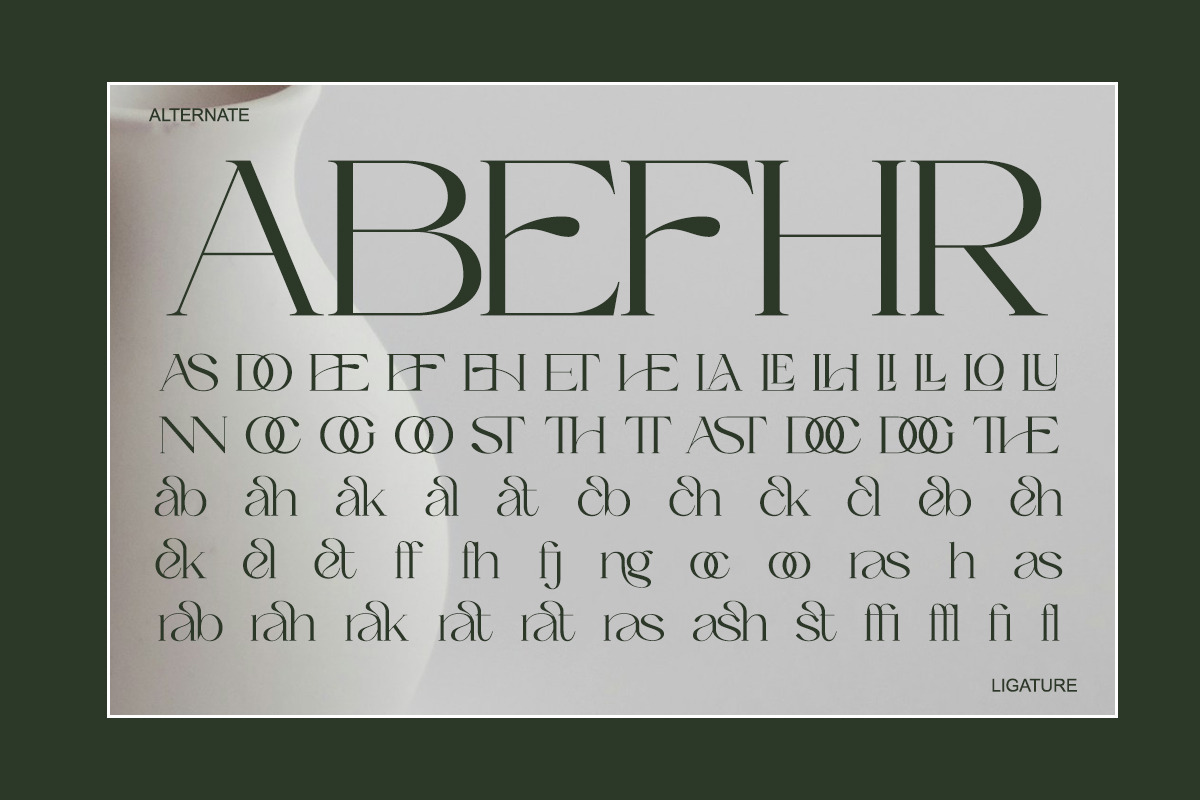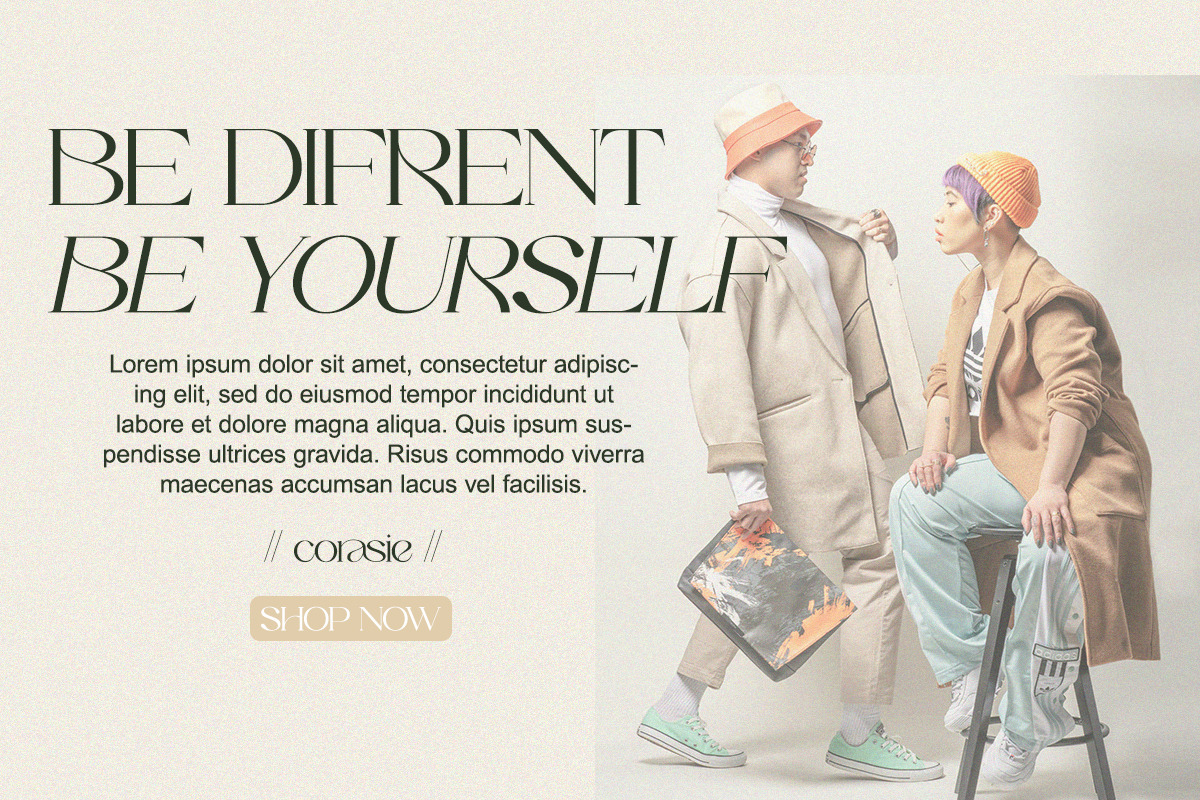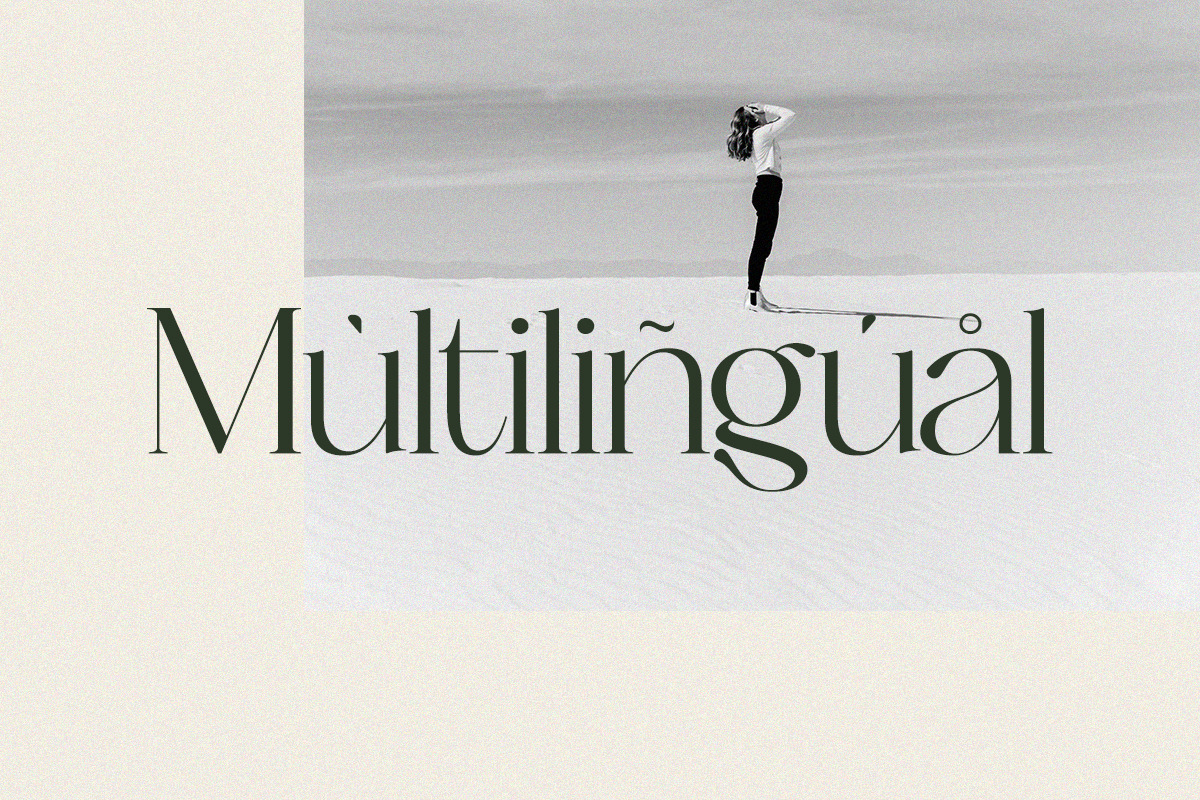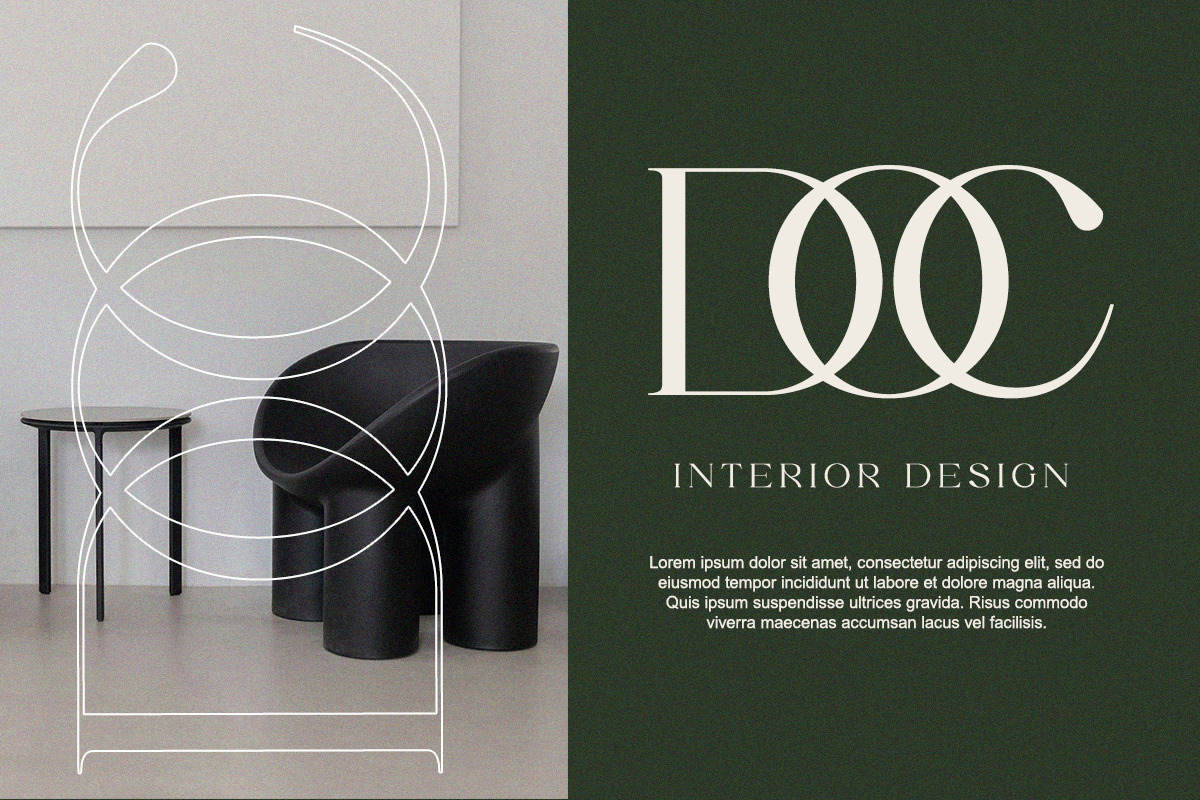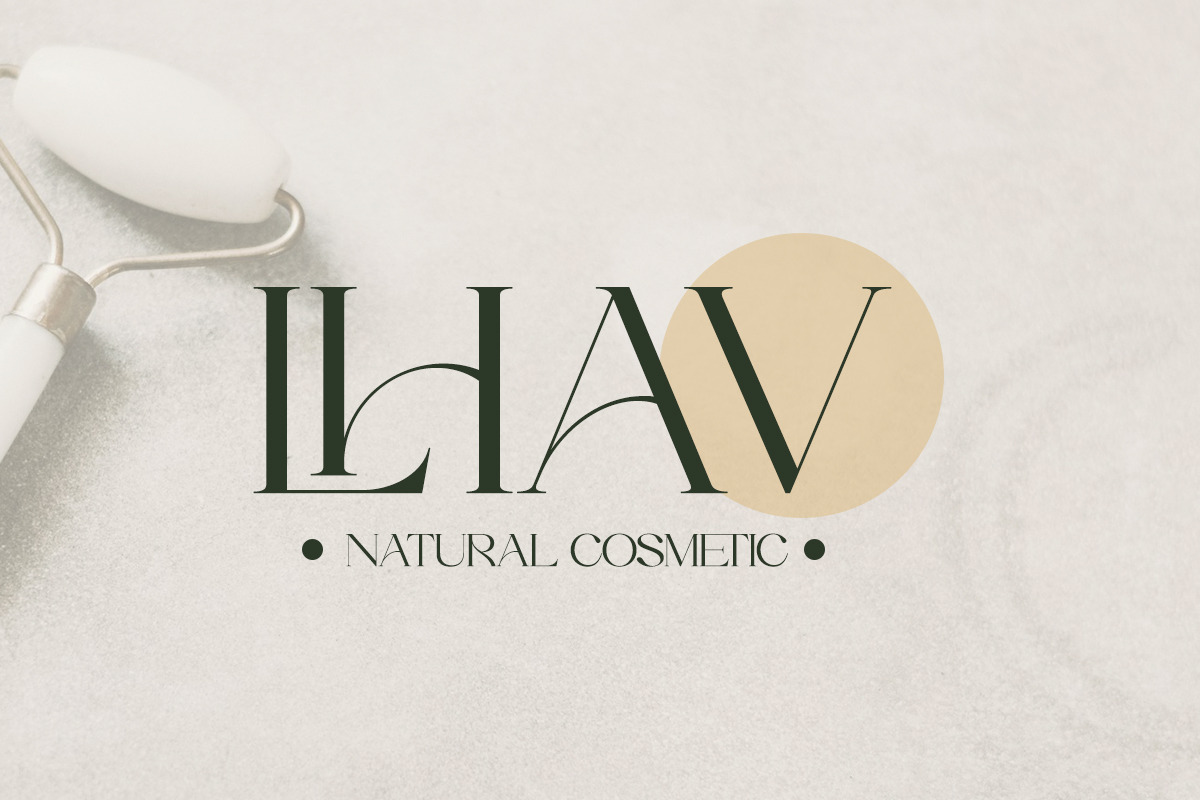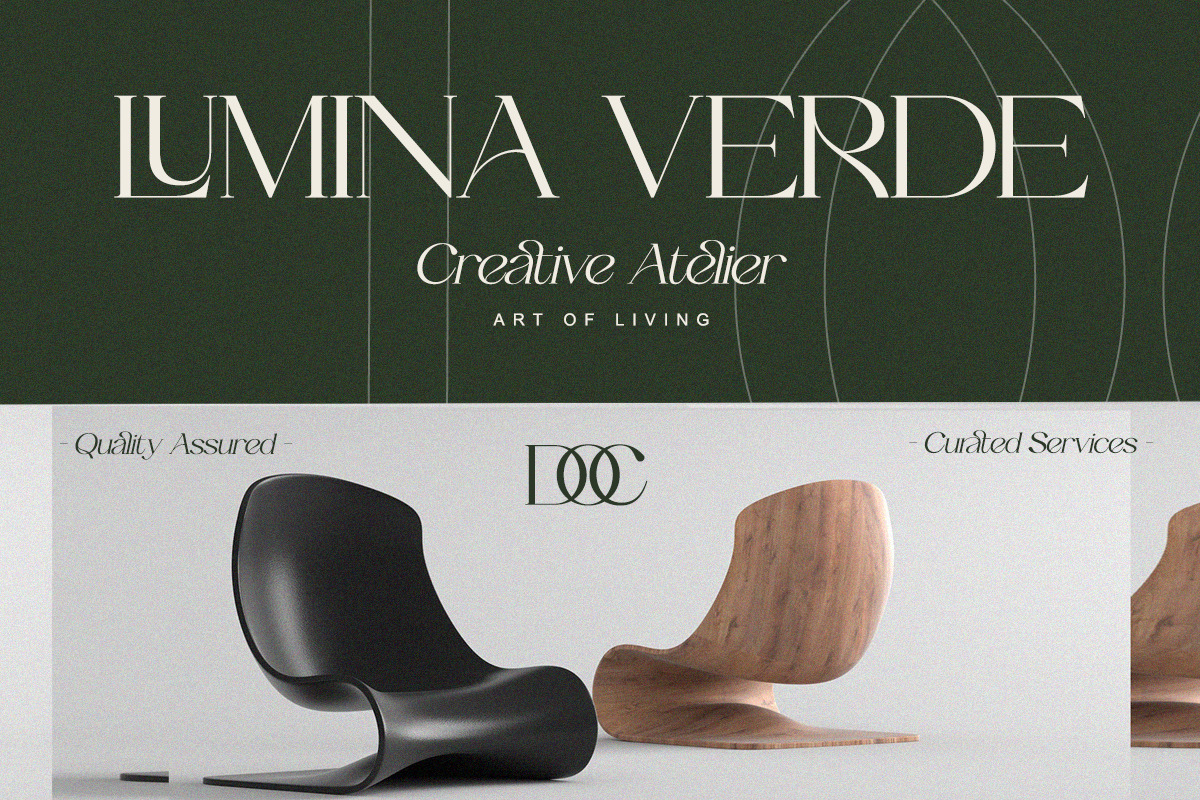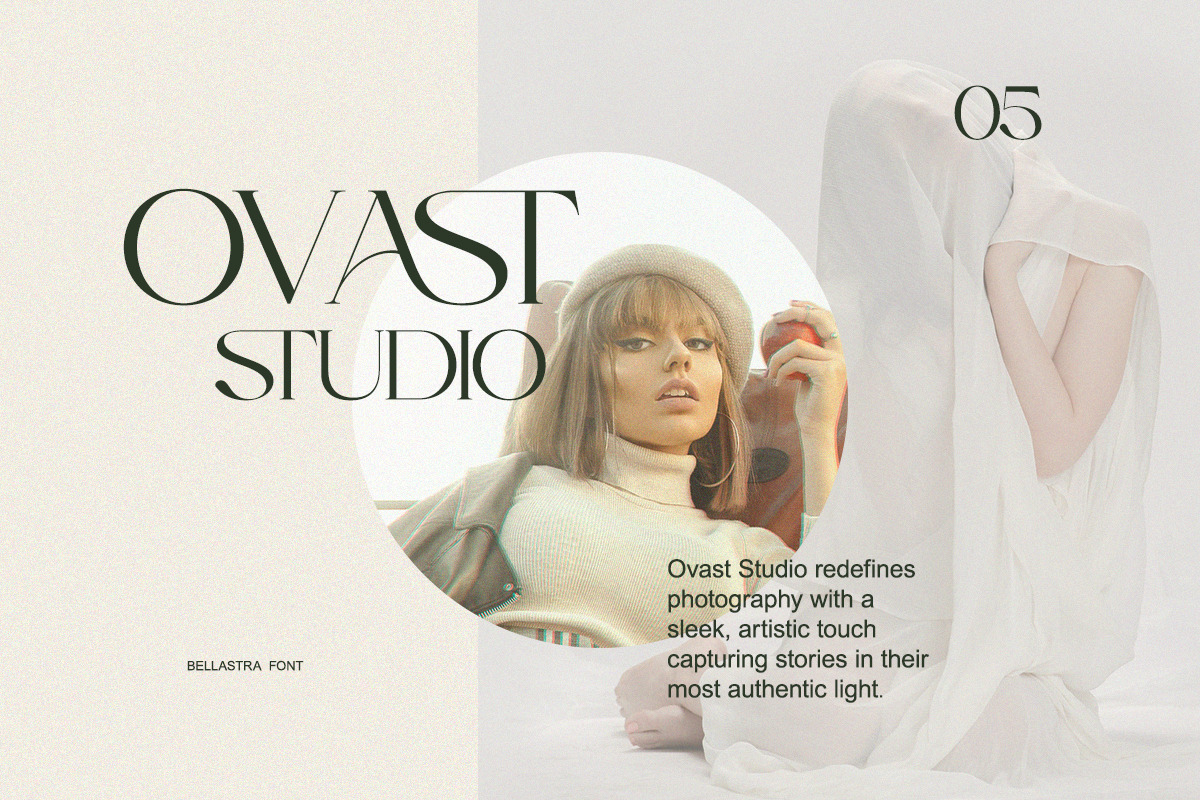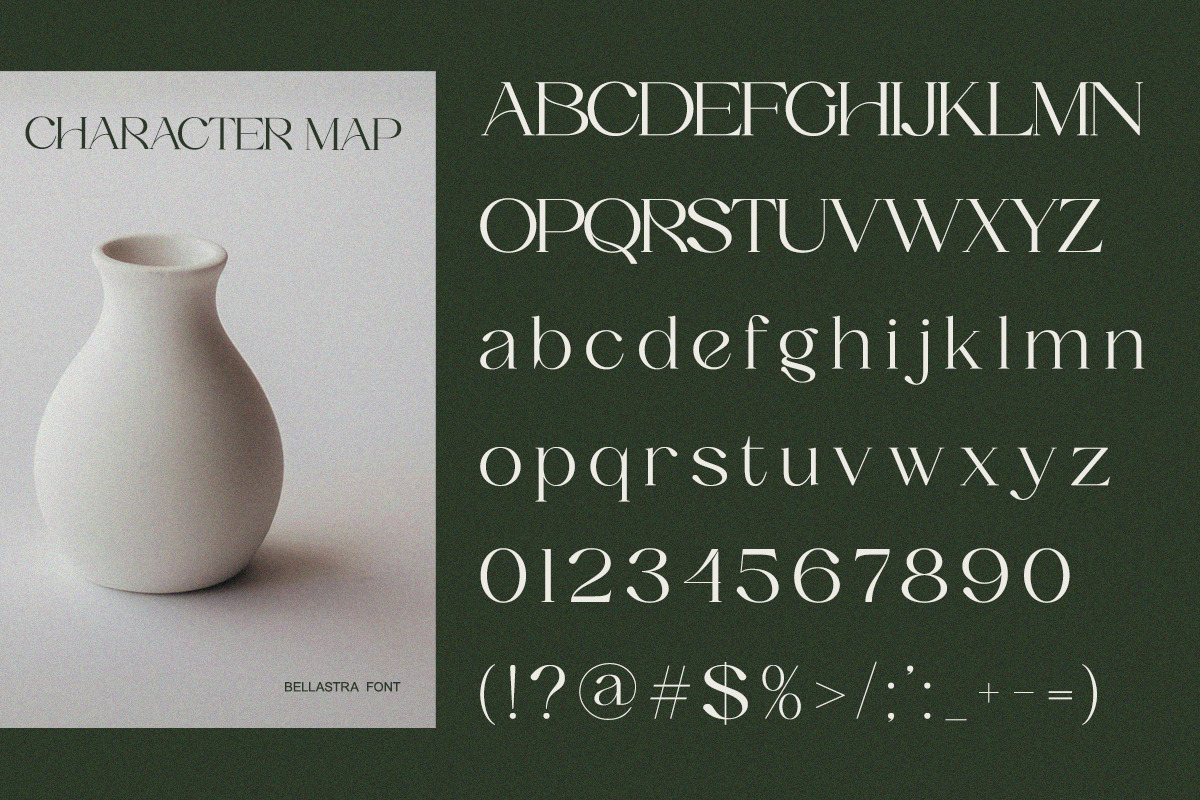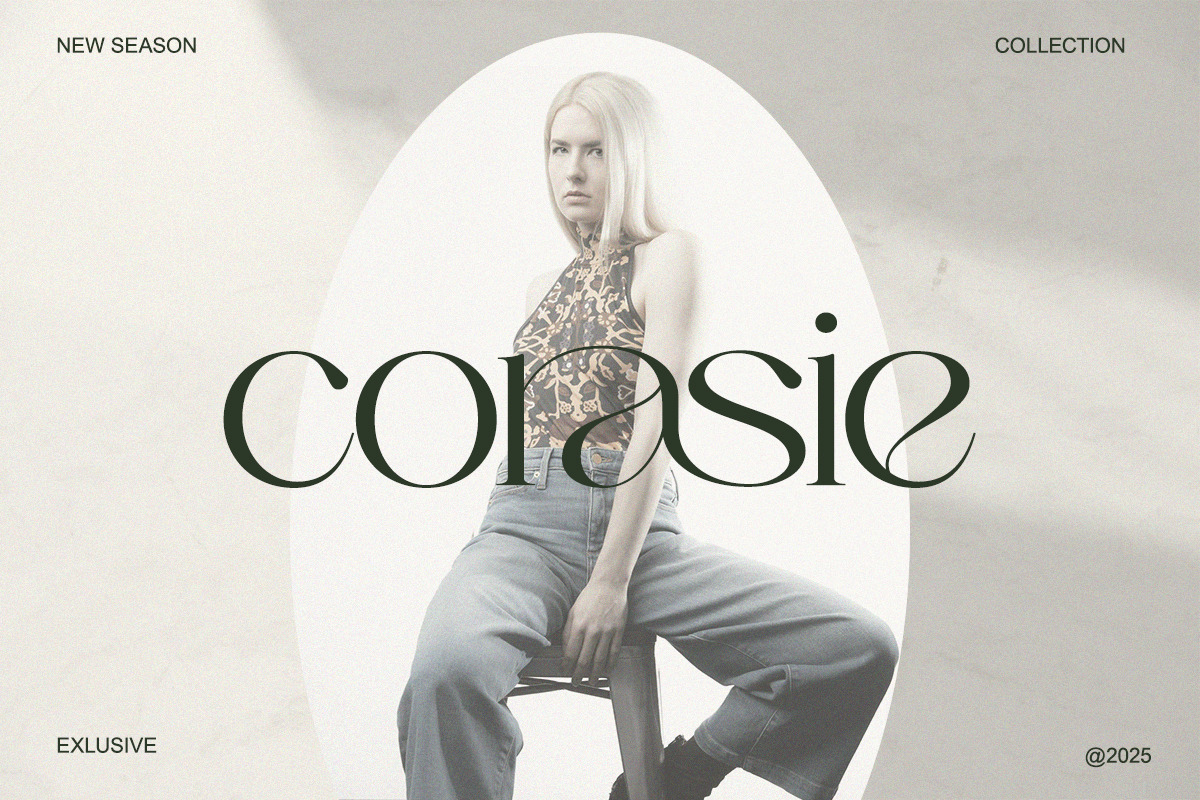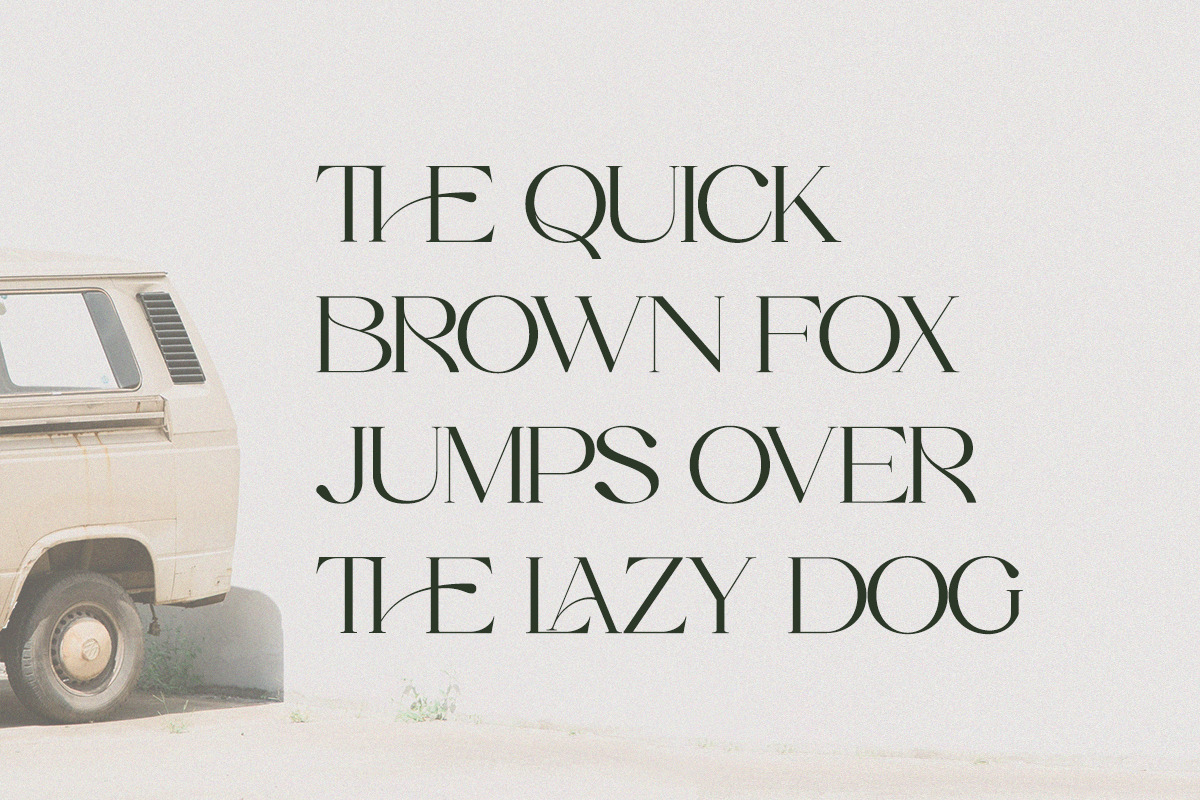
Bellastra - A Timeless Elegant Serif
Meet Bellastra, a serif typeface made for elegance lovers. It brings a perfect balance of modern beauty and classic sophistication, ideal for logos, wedding invites, fashion branding, or editorial headlines. Every letter is crafted with harmony and proportion, creating a confident yet soft presence on every design.
- Regular & Italic
- Alternates & ligatures
- Punctuation & numerals
Perfect For: Wedding stationery, beauty brands, boutique logos, high-end packaging, social media templates, and magazines.